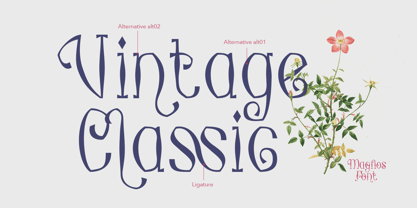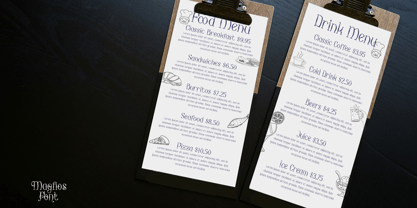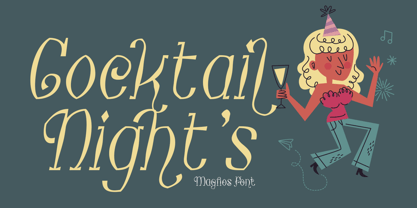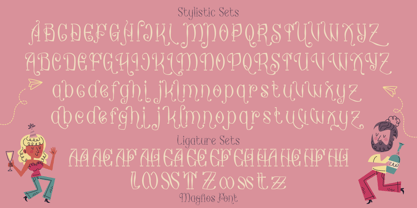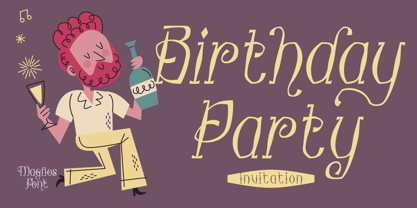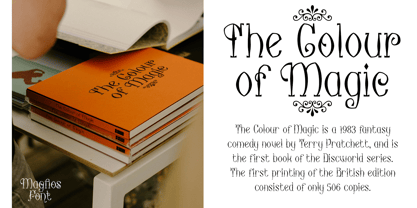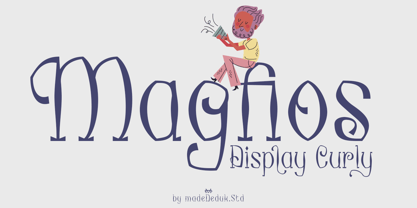
Magfios
by madeDeduk
The Magfios Font Family was designed by madededuk and published by madeDeduk. Magfios contains 2 styles and family package options.
Introducing Magfios is a mix of playful and stylish font, a little unique serif brings you back in time. Ready to make your projects as unique as you are, brings effortless style to posters, wedding invites, menus, kids books, delightful packaging, logos and so much more.